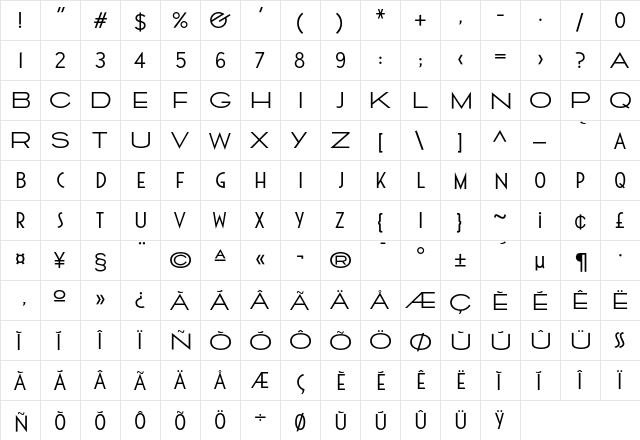
CassandraEF Regular
Design Context for CassandraEF Typeface
CassandraEF takes a measured approach to typography — its balanced proportions and neutral character make it a reliable workhorse for both digital and print work.